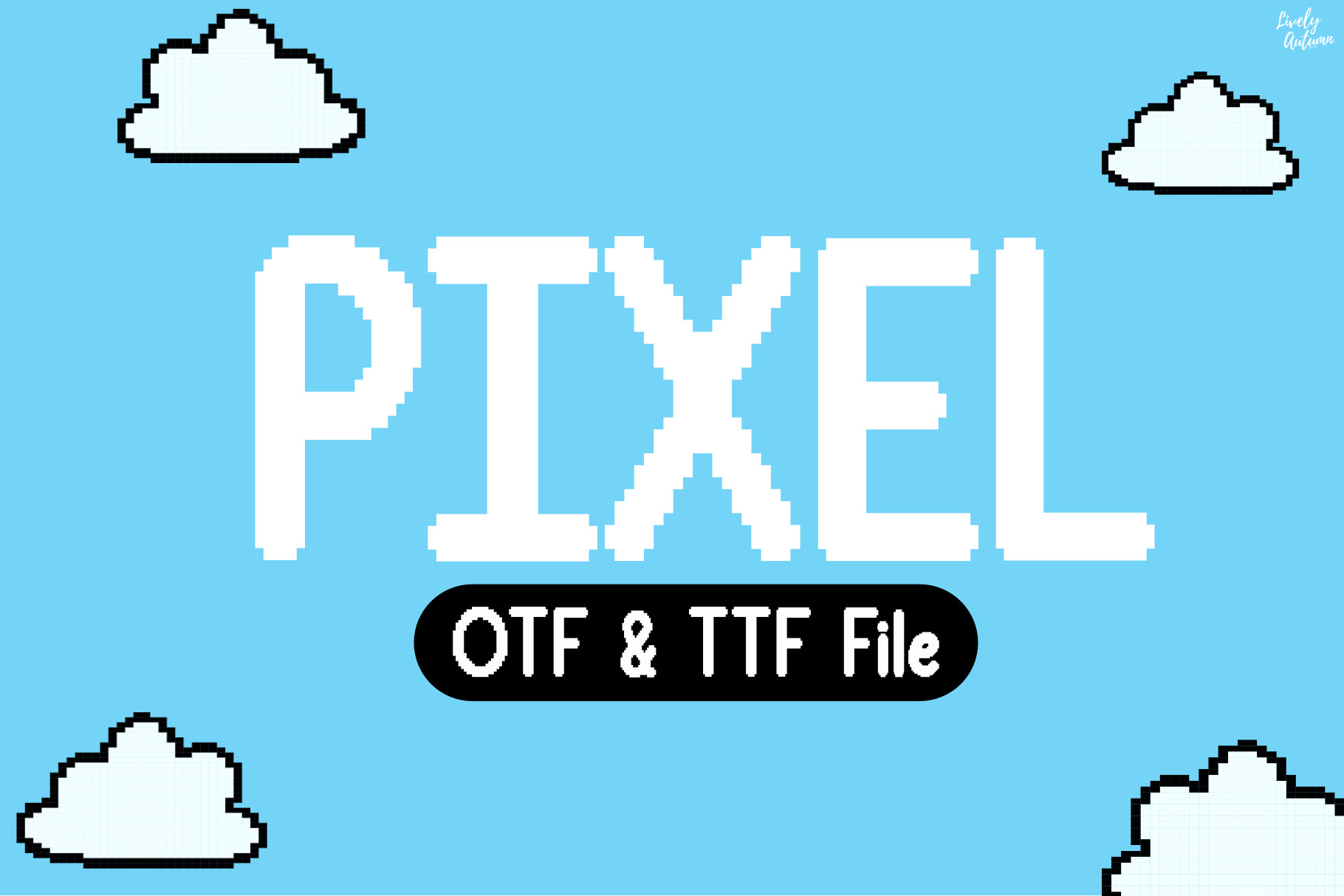
Pixel | Video game pixel font
Pixel Font is a bold pixel art font. Perfect for your video game projects and various projects. From invitations to posters, social media graphics, journals, and much more.